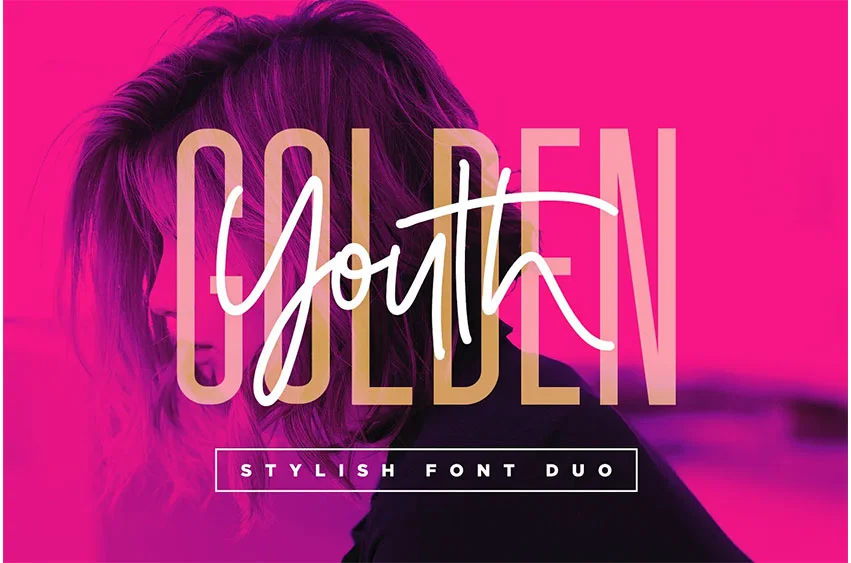
Golden Youth Font; A stylish & modern harmony of sans & script typefaces. With a tall condensed sans-serif font and a free-flowing script companion, Golden Youth offers beautiful contrasting typography for a diversity of design projects, including; logos & branding, packaging design, social media posts, advertisements & product designs.